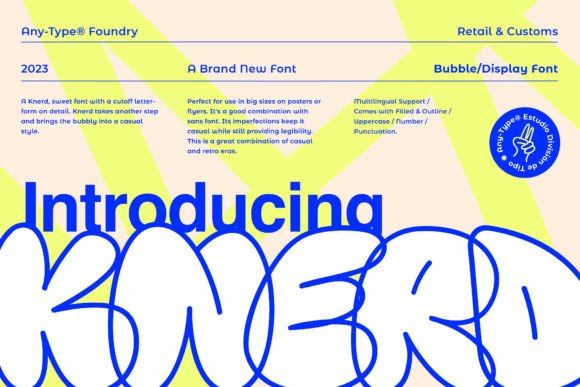
Journey into the world of Knerd Font, a display font family that radiates character and creativity. Designed by the ingenious minds at Anytype, Knerd Font is a captivating fusion of chunky, rounded letters and a hint of graffiti-inspired charm. Its distinctive cutoff letterform adds a touch of intrigue, making it the perfect choice for those seeking a font that exudes individuality.
Knerd Font's playful nature and versatile personality make it a perfect match for a myriad of projects. Envision your designs adorned with this captivating font, from letterheads and titles that demand attention to posters that ignite imagination. Let Knerd Font be your creative companion, transforming ordinary words into captivating expressions.
Step into the realm of endless possibilities with Knerd Font. Its playful curves and energetic style bring a sense of vibrancy to any project. Embrace the power of expression and let your designs radiate with the unique charm of Knerd Font.